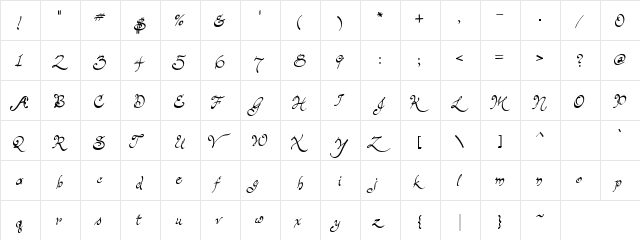
LD Elegancia Regular Font Preview
LD Elegancia Regular
Design Context for LD Elegancia Typeface
LD Elegancia is a composed and adaptable typeface that performs quietly and consistently across a wide range of design contexts.